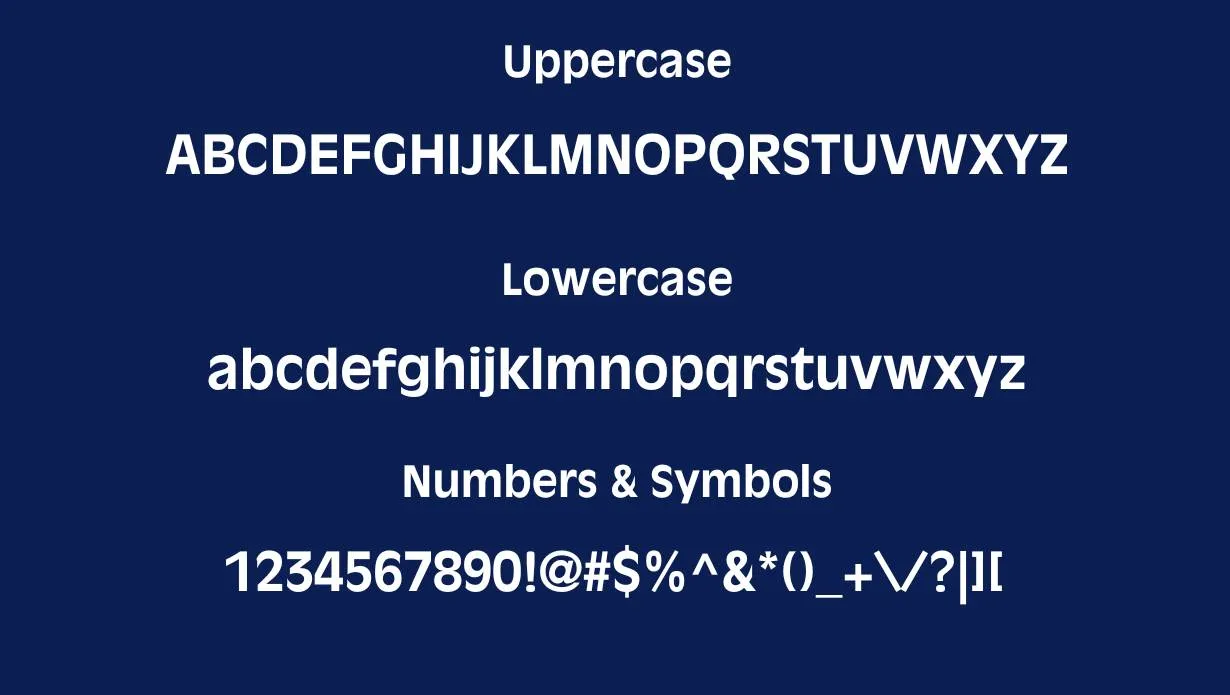
Antique Olive Font has a timeless and legible design, often used in editorial design, advertising, and branding.
Its clean lines and straightforward style make it a practical choice for conveying clarity and professionalism in your projects.
| Name | Antique Olive Font |
| Designer | Roger Excoffon |